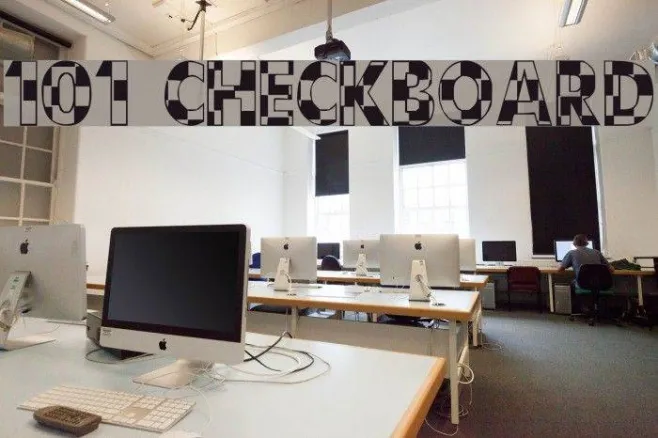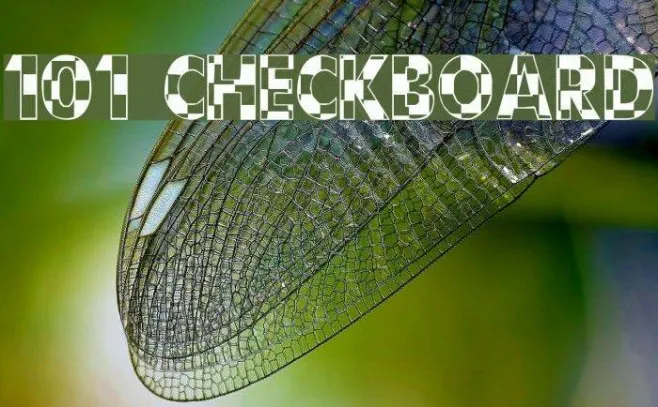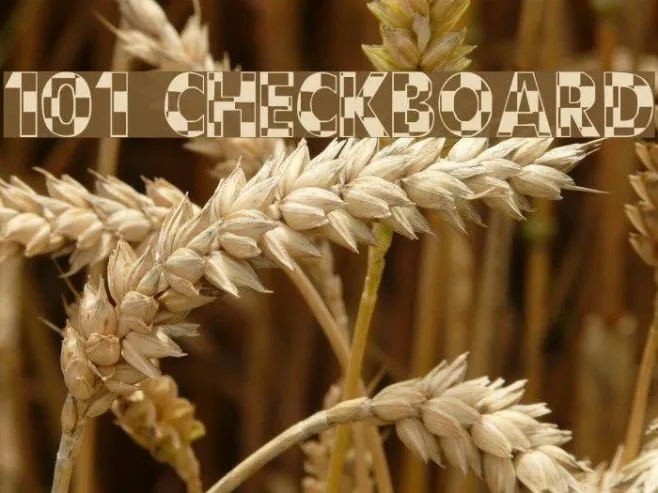
101! CheckBoard Font
101! CheckBoard Description
This font features a bold, geometric design with a distinctive checkered pattern filling each character. The uppercase letters are robust and commanding, while the numbers maintain a consistent style, ensuring readability despite the intricate pattern. The font's unique aesthetic is achieved through a combination of solid black and white squares, creating a striking visual effect that draws attention. The characters are evenly spaced, providing a balanced appearance that enhances its decorative appeal. This font is ideal for projects that require a bold statement or a modern, artistic touch.
| Proposed Projects | Ideal for posters, album covers, branding, and any project needing a bold, artistic statement. |